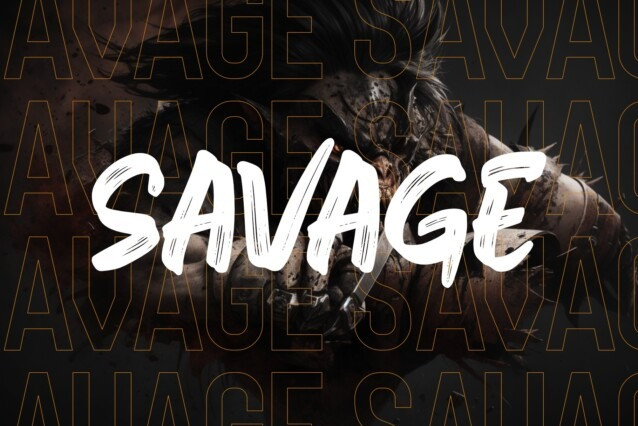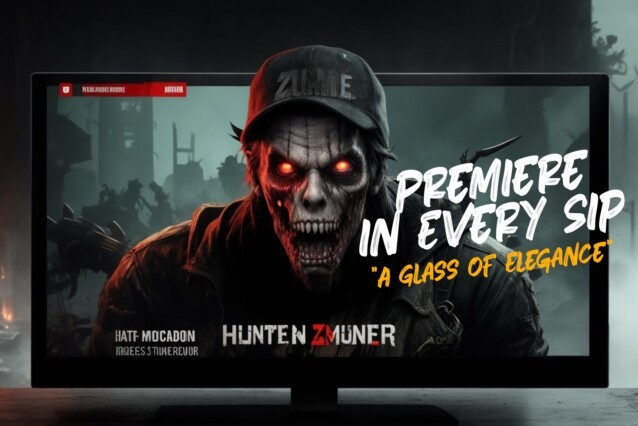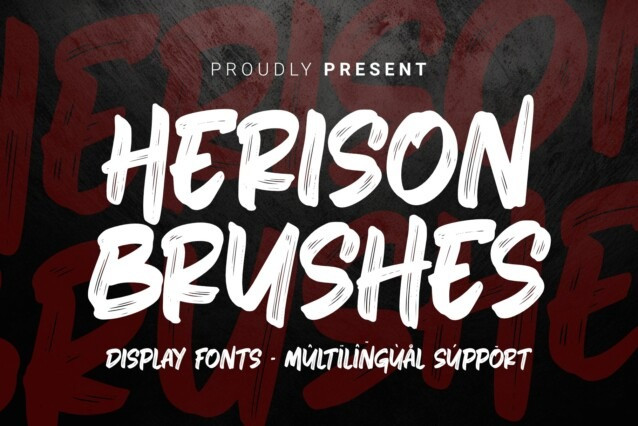
Herison Brushes Font
Herison Brushes Font is a hand-painted font that each character is carefully painted to perfection. Each letter reflects the beauty of elegant brush strokes, conveying a sense of spontaneity and creativity. With its unique and distinctive design, this font is ideal for branding projects seeking an elegant look infused with artistic character. The soft strokes and meticulous hand-drawn details give “Herison Brushes” a natural elegance, making it well-suited for various design contexts, including logos and promotional materials. Beyond a mere typographic representation, this font is a work of art that combines uniqueness and beauty in every letter, making it the perfect choice to create a stunning and memorable brand identity.